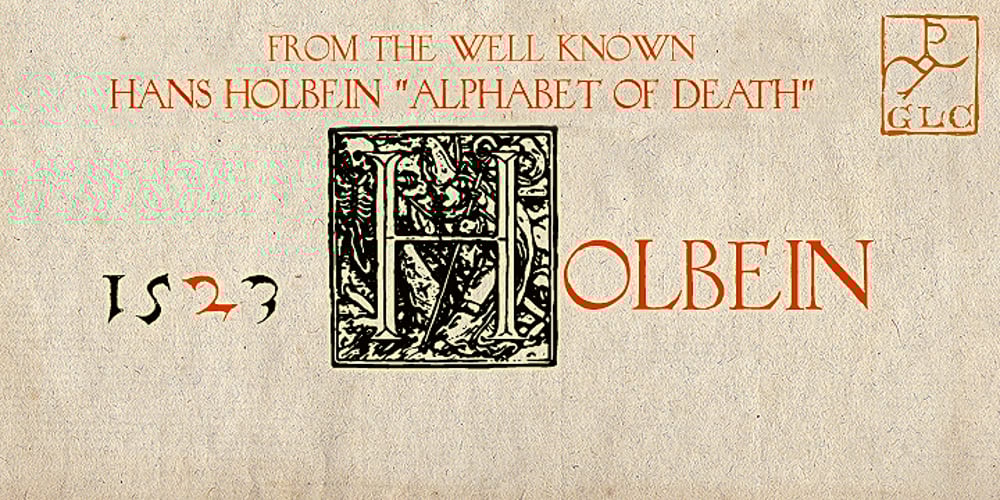
1523 Holbein Font Family was designed by published by GLC. 1523 Holbein contains 1 styles and family package options. This typeface is an attempt to offer as a font the well known marvelous Hans Holbein “Death Alphabet”, first published in 1523. We have tried to preserve as much as possible the spirit and appearance of the original Initials set — incredibly fine and enriched with detailed figures — trying at the same time to create a font not too complex to be usable. Neverteless, the font files are large, and when used, the decorated initials may appear on screen more slowly than ordinary characters. (Minimum size recommended : 96 pts) We are offering here two complete standard sets (no accented characters) : Initials and capitals. We have reconstructed the missing letters : J and U, Eth, Lslash, Thorn and Oslash. The font may be used with all our Humane and Garalde fonts, like 1543 Humane Jenson or 1592 GLC Garamond and others from the GLC foundry catalog.